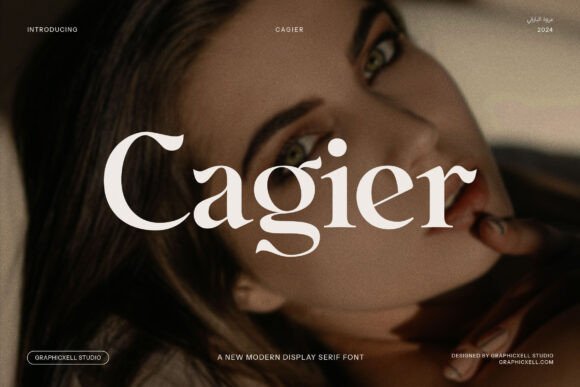
**Cagier Elegant Display Font – A Stylish Blend of Modern Elegance and Vintage Flair** Introducing **Cagier Elegant Display Font**, a sophisticated serif typeface designed to bring a sense of timeless elegance to your designs.
With its refined curves and distinctive style, this modern font embodies a perfect balance of vintage charm and contemporary sophistication, making it a versatile choice for any creative project Whether you’re crafting a **luxury brand**, designing a **logo**, or working on **premium product packaging**, **Cagier** offers a unique touch that elevates your work.